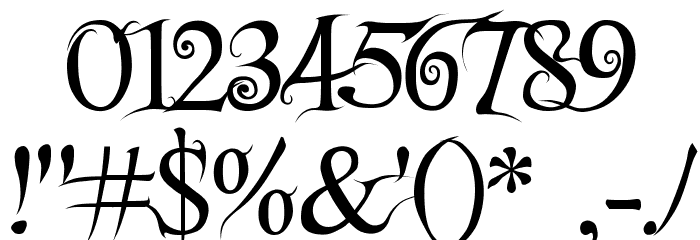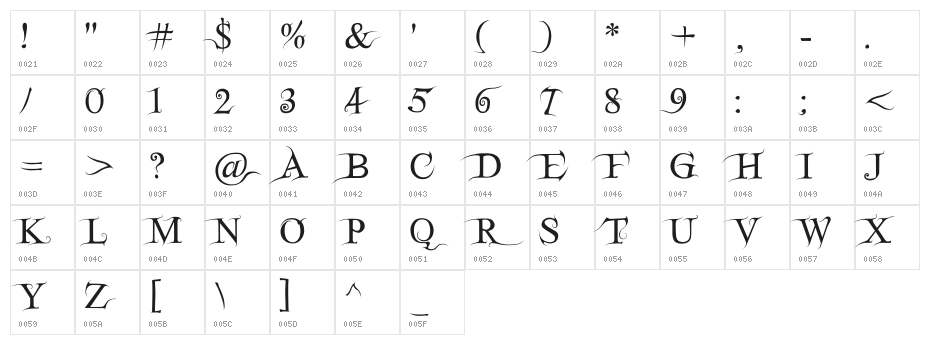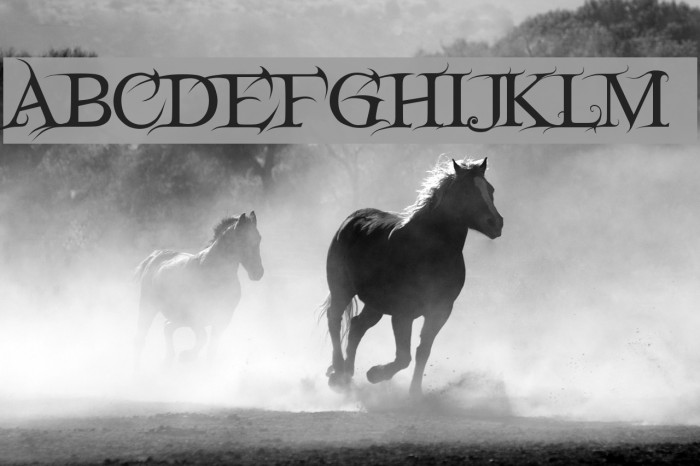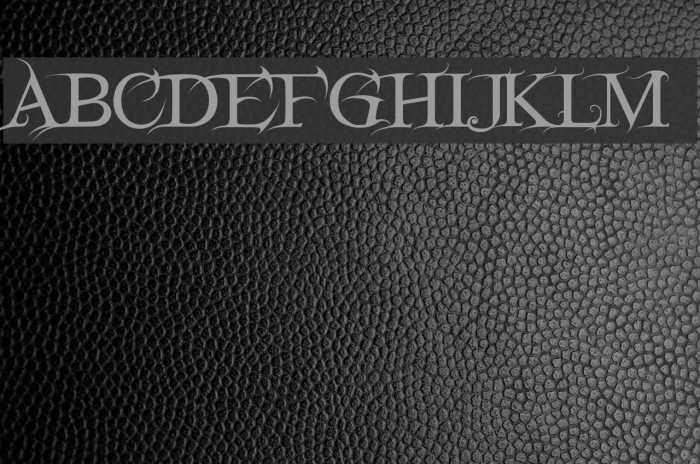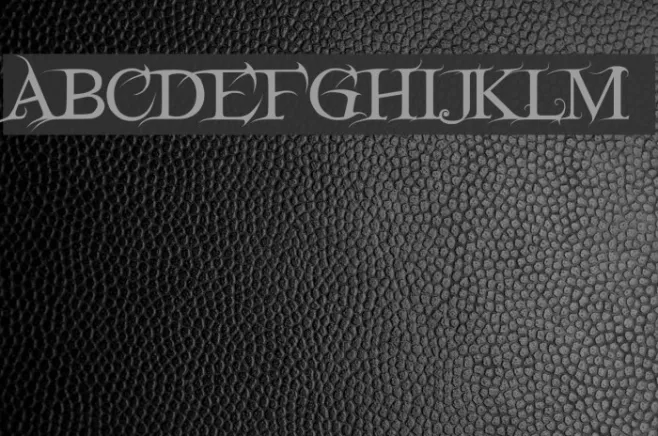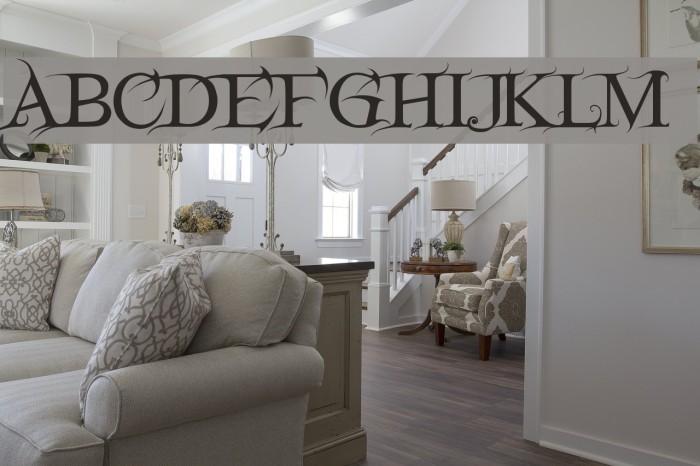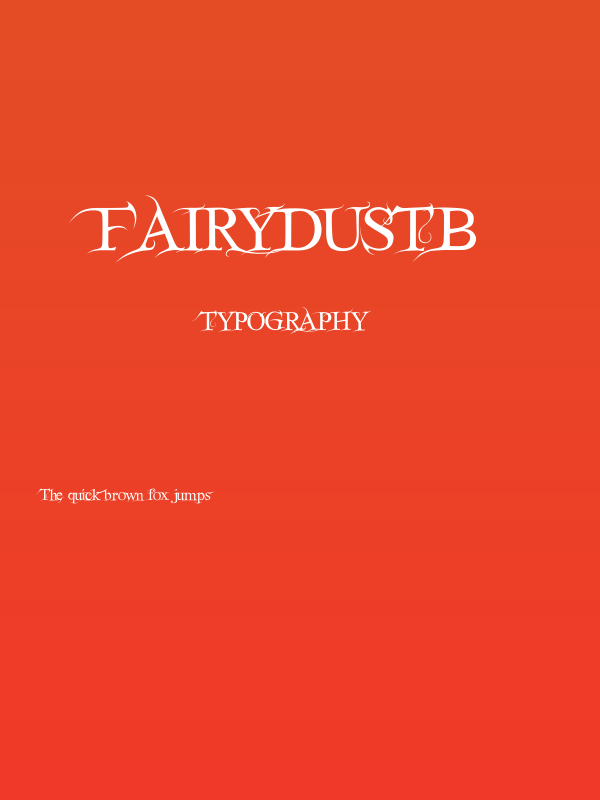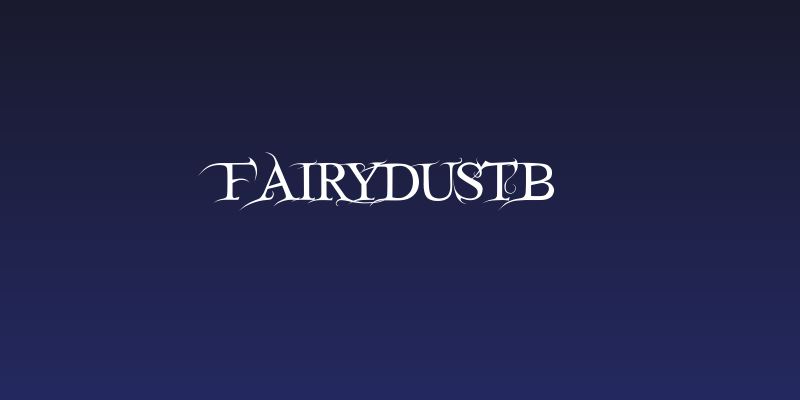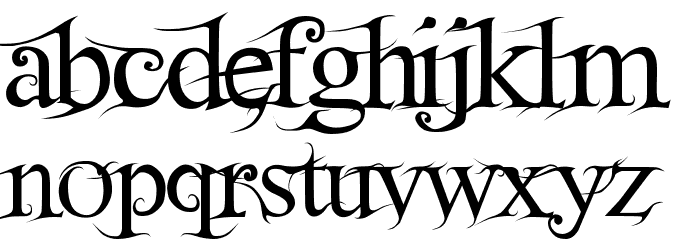
FairydustB Font
FairydustB Description
This font features an enchanting and whimsical design, characterized by its decorative and intricate letterforms. Each character is adorned with elegant swirls and sharp, thorn-like extensions that give it a magical and fairy-tale-like appearance. The uppercase letters are bold and commanding, while the lowercase letters maintain a consistent style with slightly more delicate features. The numbers are equally ornate, with unique curls and flourishes that add to the overall mystical aesthetic. Special characters are designed to match the elaborate style, making this font perfect for creating a cohesive and captivating visual theme.
Use CaseHeadlines, Logos, Invitations
Proposed ProjectsIdeal for fantasy-themed projects, book covers, invitations, and branding that requires a magical touch.